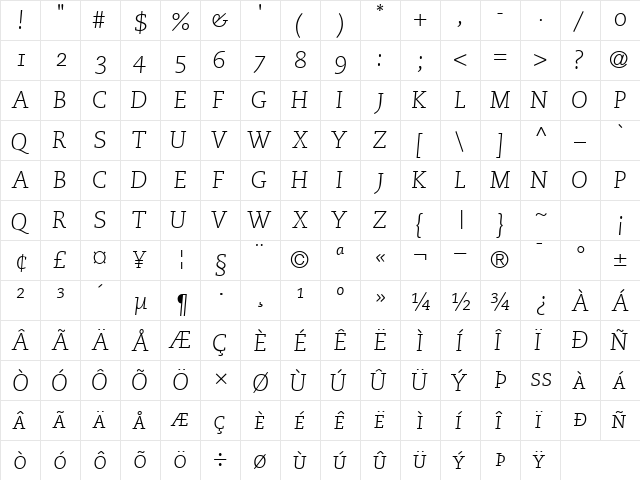
MonologueLightCapsSSK Italic Font Preview
Design Context for MonologueLightCapsSSK Typeface
MonologueLightCapsSSK brings the precise, column-aligned rhythm of monospaced typography to designs that value technical clarity and systematic order. Its italic angle brings a sense of urgency and motion to the letterforms. The delicate stroke weight brings airiness and refinement to layouts.
Pro Tip: Pair MonologueLightCapsSSK with a proportional sans for UI contexts where code-style labels and regular body copy need to coexist.